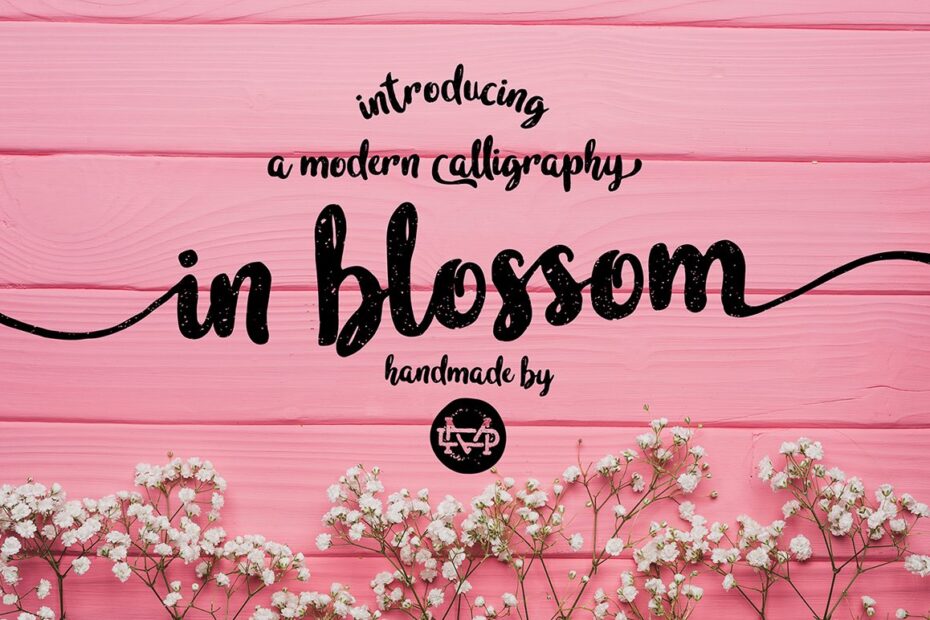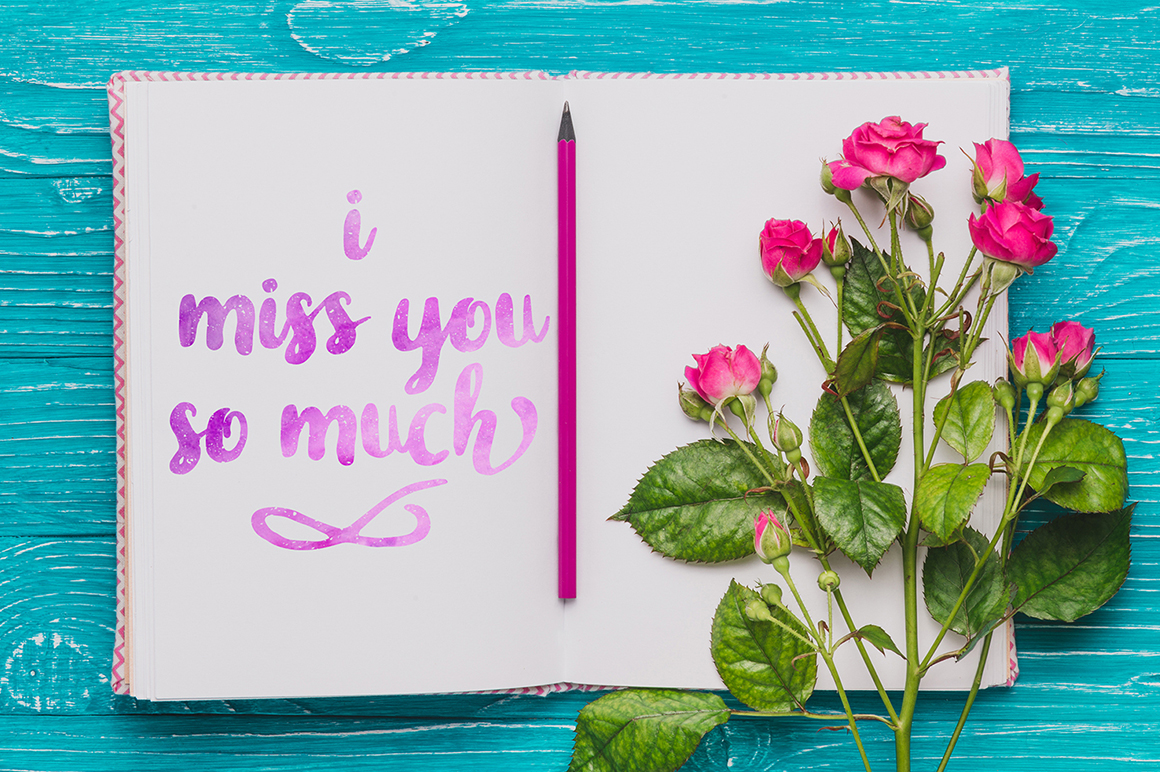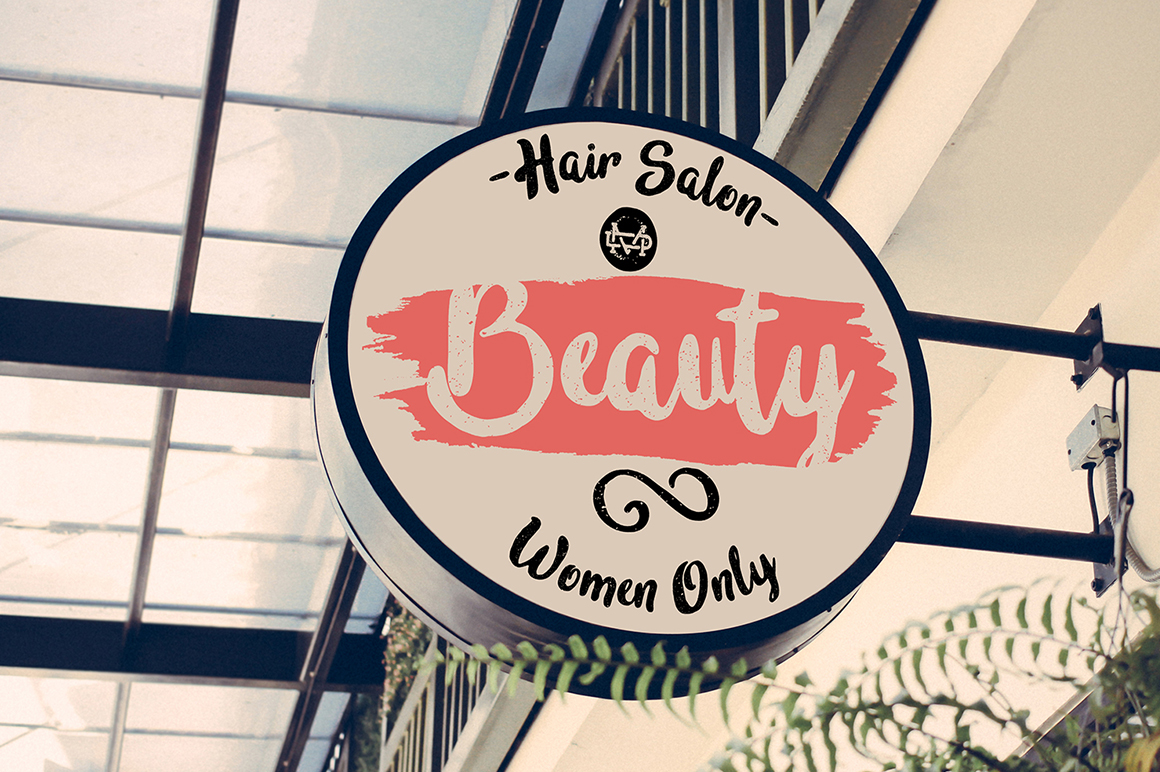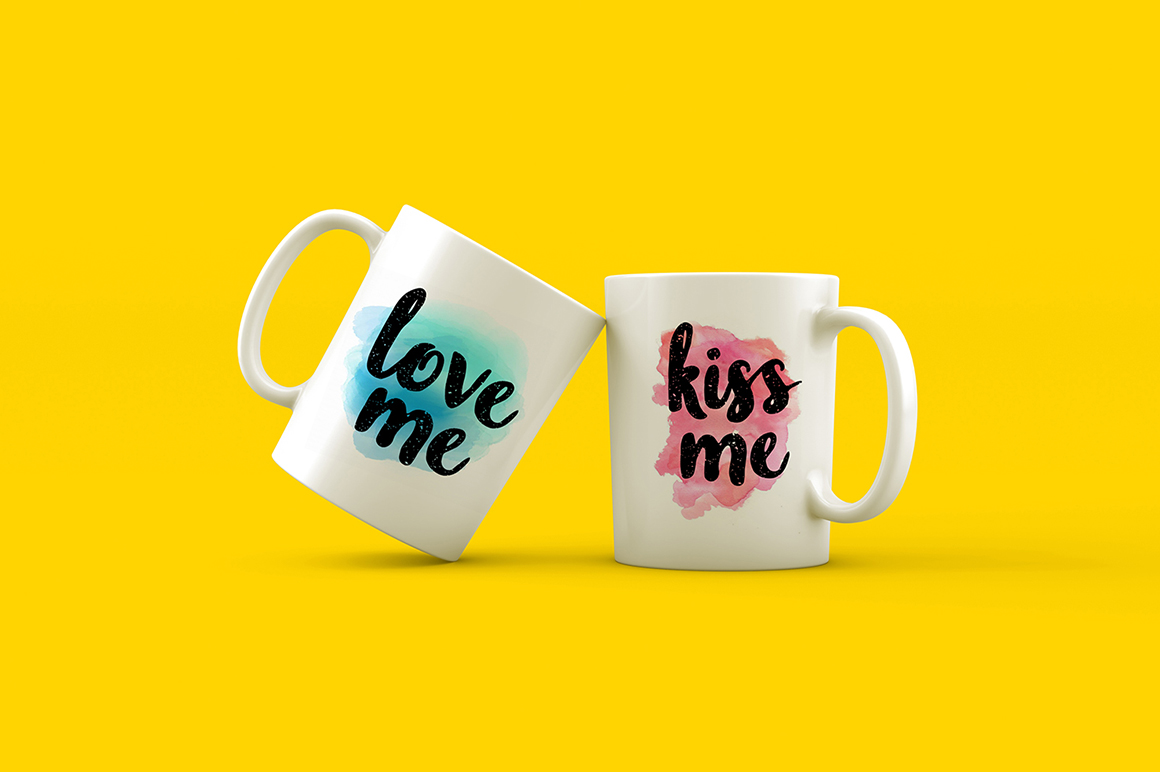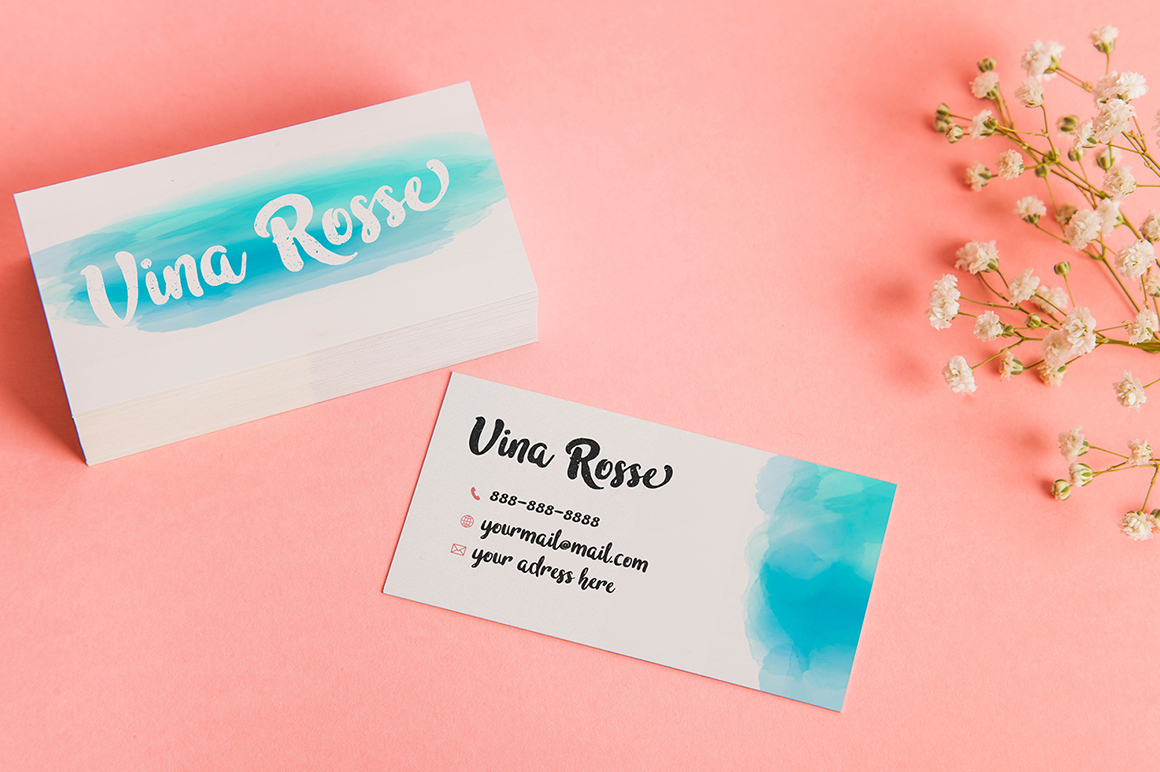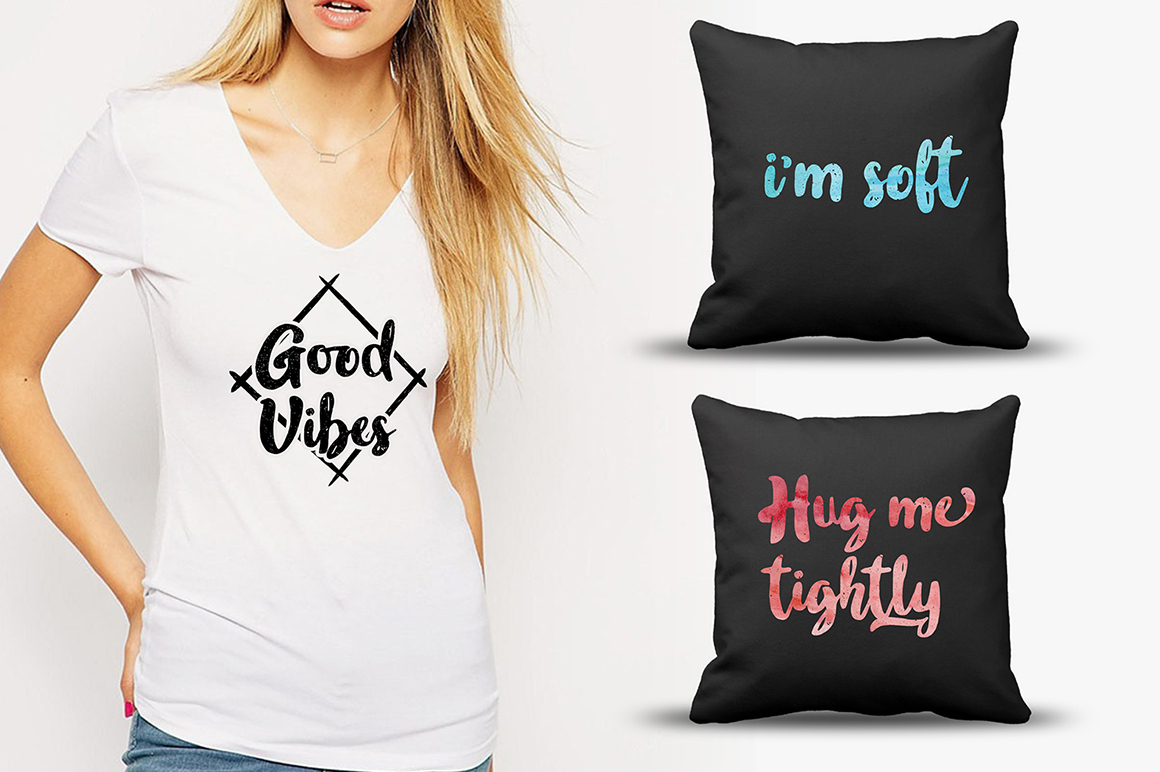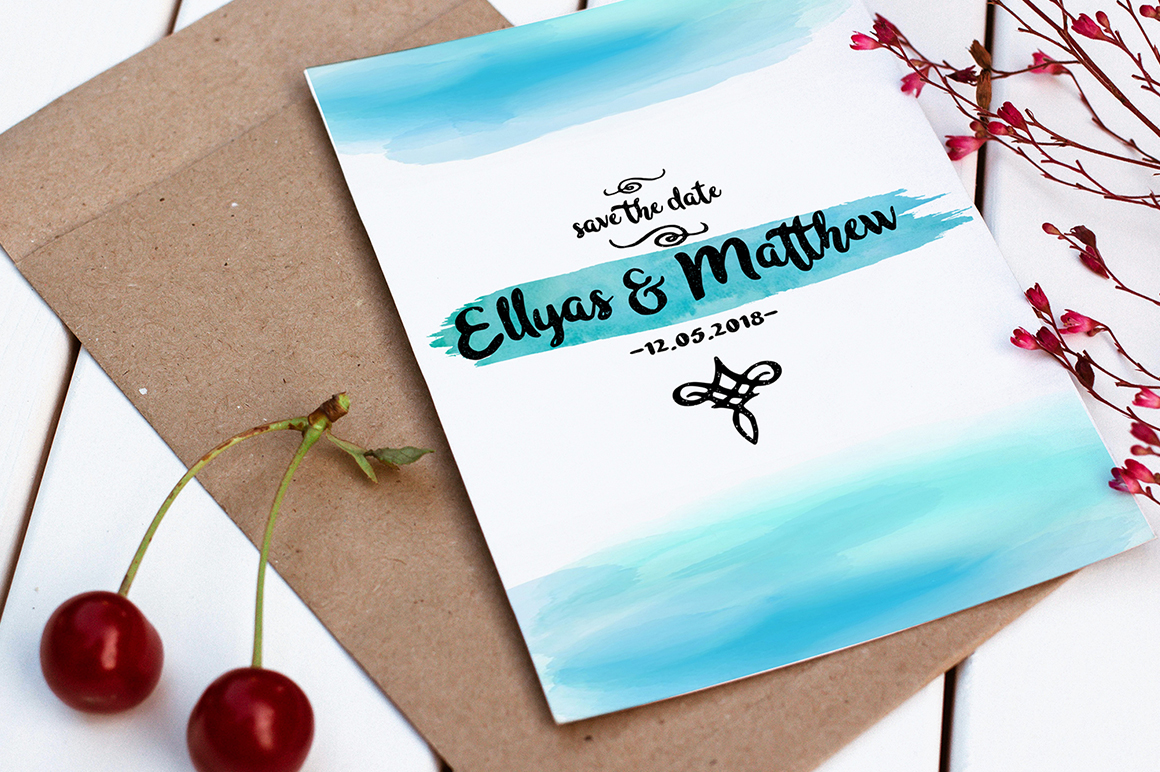
Meet Your New Creative BFF: In Blossom Font
Have you ever been stuck in a creative rut, staring at a blank page with nothing but a blank expression staring back? We’ve all been there. But what if I told you there’s a font that can shake things up and bring a little sass to your designs? Enter In Blossom Font, a bold and playful handwritten font that’s about to become your new best friend.
With over 350 unique glyphs to play with, In Blossom Font is the ultimate versatile font for designers. Whether you’re working on a modern brand identity or a vintage-inspired project, this font’s got you covered. Plus, with two versions to choose from – In Blossom & In Blossom Vintage – you can mix and match to create a look that’s uniquely yours.
So why is In Blossom Font a game-changer for designers? It’s simple: this font adds a touch of personality to any project, making your designs stand out from the crowd. Trust us, your clients (and your creative soul) will thank you.
In Blossom Font Key Features
- Font Family: In Blossom Font offers a beautiful and elegant script font, perfect for wedding invitations, quotes, and other creative projects.
- Size: The font family includes 6 different sizes, from 12 to 72 points, providing flexibility for various design applications.
- Resolution: The font is designed for high-resolution displays, with a resolution of up to 300 DPI, ensuring crisp and clear typography.
- Unique Characteristics: In Blossom Font features a unique, hand-drawn design with intricate details and flourishes, adding a touch of elegance to any project.
- Language Support: The font supports a wide range of languages, including English, Spanish, French, German, Italian, and many more.
In Blossom Font Review
I’ve had the chance to work with “In Blossom Font” and I must say, it’s a unique and lovely font. ✨
- Whimsical and feminine touch: In Blossom Font has a beautiful, delicate feel to it that’s perfect for feminine or spring-inspired designs.
- Variety of weights: The font comes in a range of weights, from light to bold, which gives designers plenty of options for creating visually appealing layouts.
- Legibility: Despite its ornate feel, In Blossom Font is surprisingly legible, making it a great choice for body text or short paragraphs.
- Limited support for special characters: Some special characters, like accented letters or currency symbols, may not render correctly in In Blossom Font.
- May not be suitable for highly technical or formal content: The font’s playful, cursive feel may not be the best fit for technical or formal content, like instructions or academic papers.
Overall, I think In Blossom Font is a lovely addition to any designer’s toolkit. It’s perfect for projects that require a touch of whimsy and femininity, but may not be the best choice for every project.
Tips: Use In Blossom Font for titles and headings to add a touch of elegance to your design.
Tips: Use In Blossom Font for custom typography and design elements to add a unique touch to your artwork.
Tips: Use In Blossom Font for titles and headings to add a touch of sophistication to your presentation or document.
In Blossom Font is ideal for:
Custom typography and design elements
Adding a touch of elegance and sophistication to any design